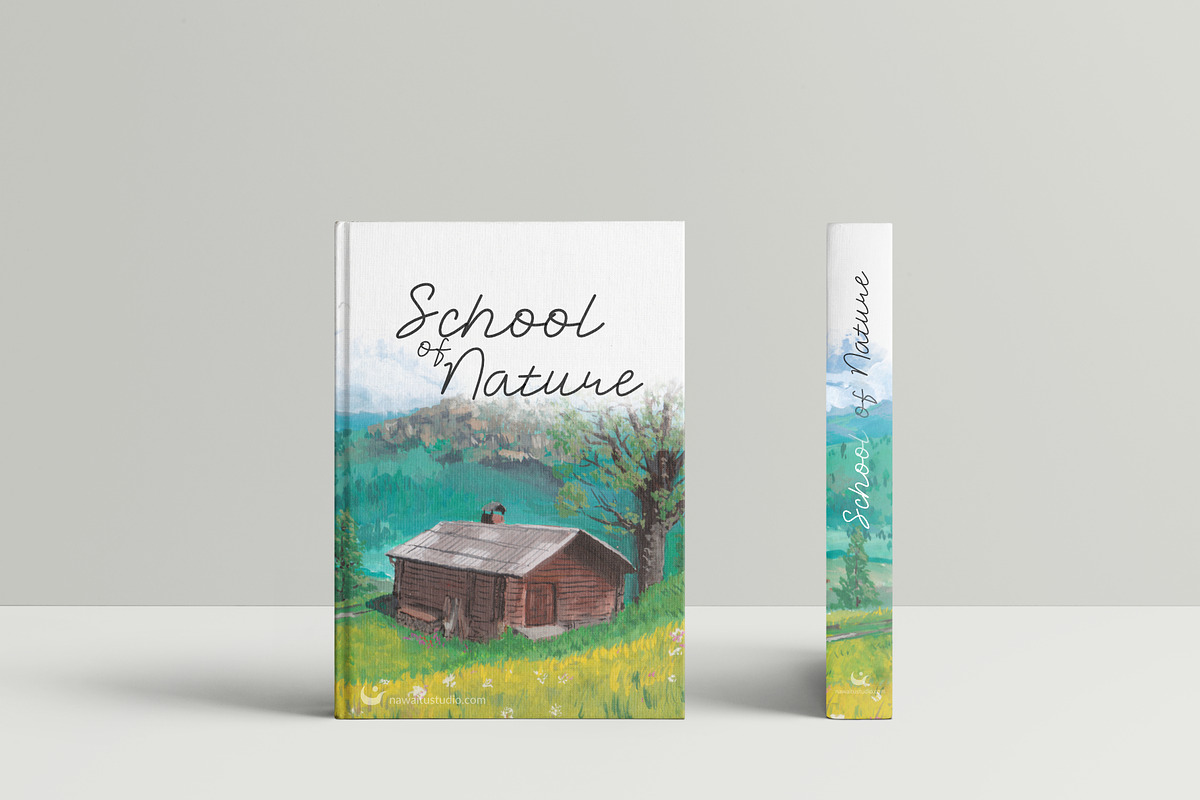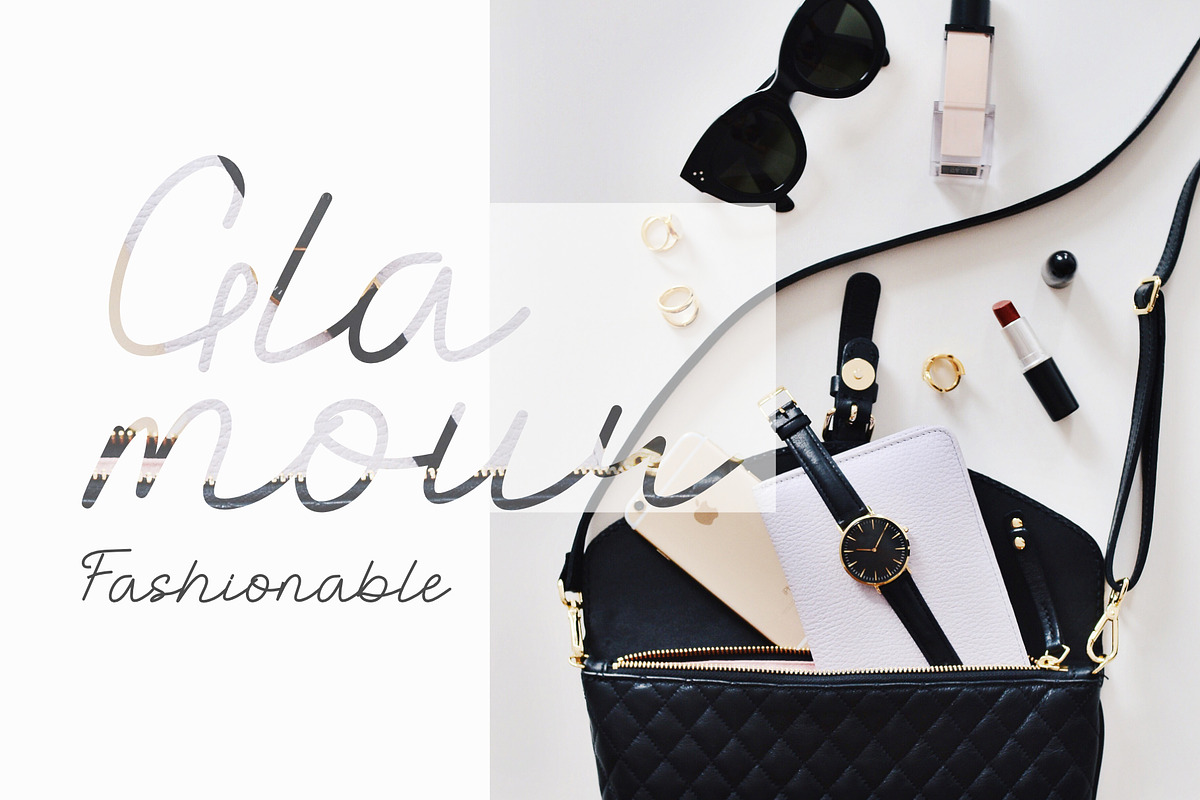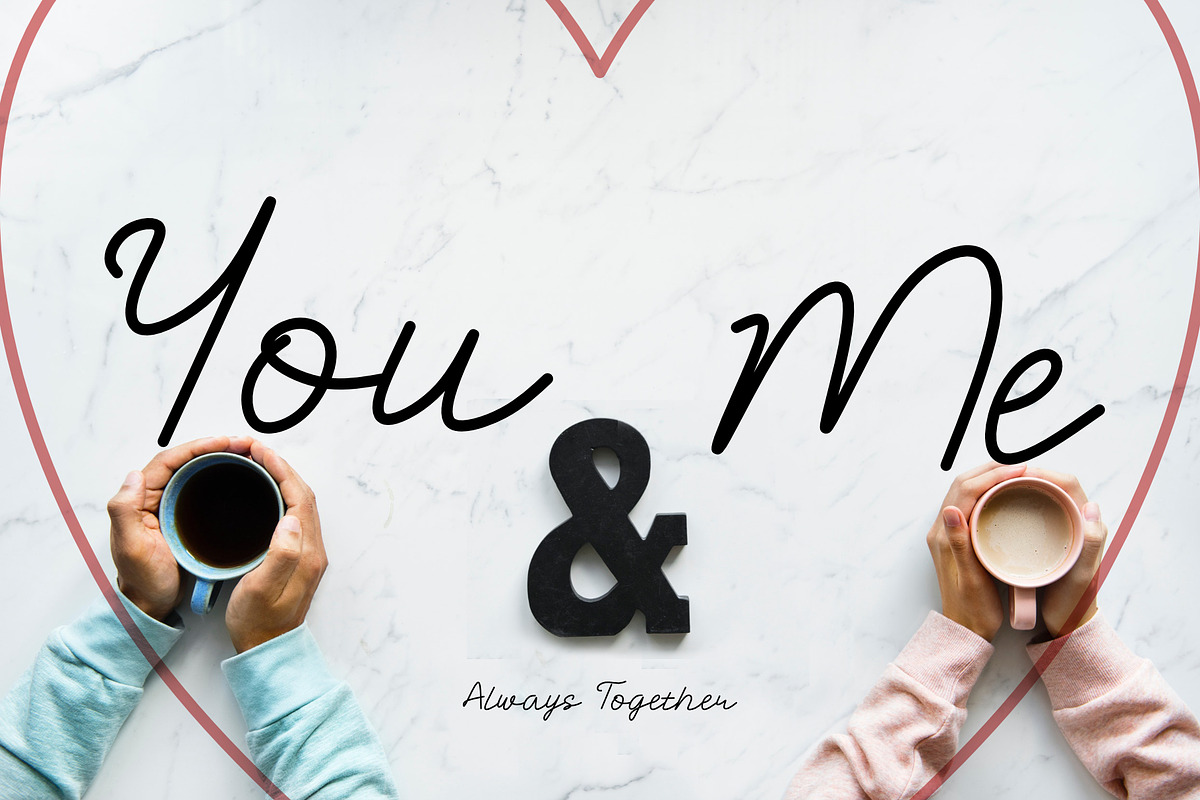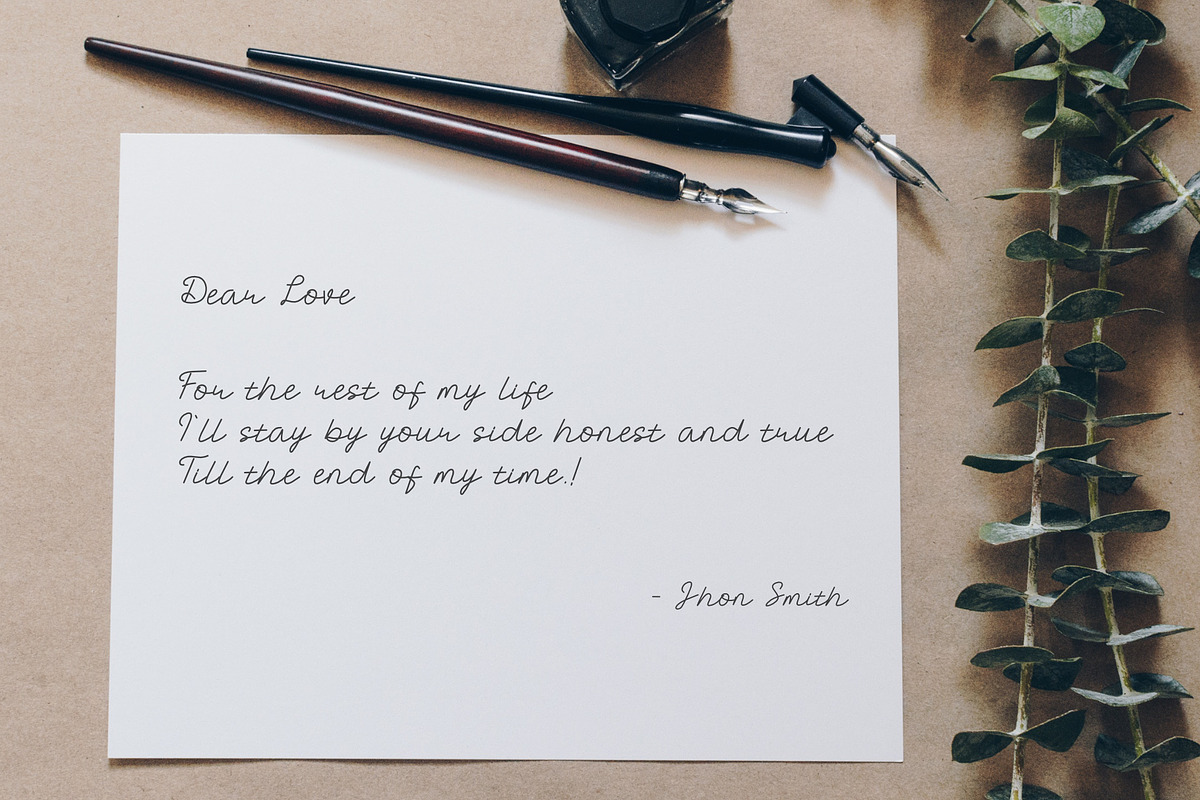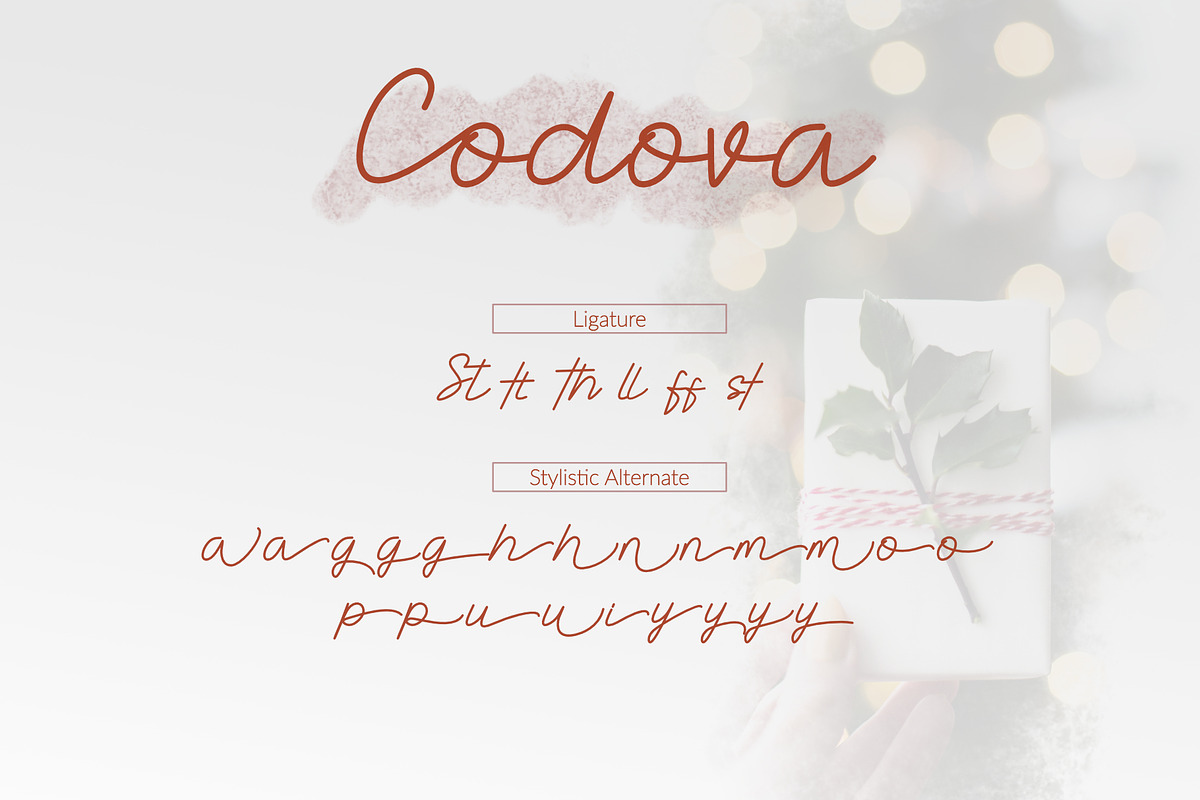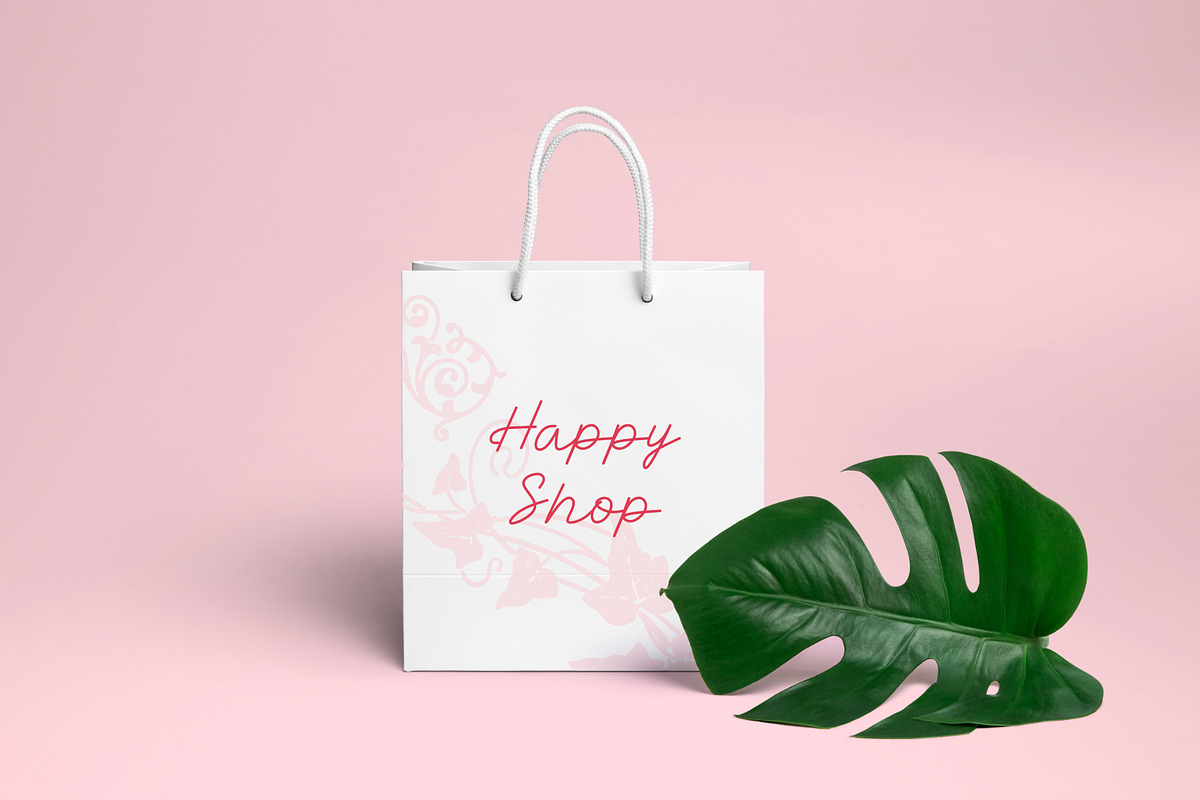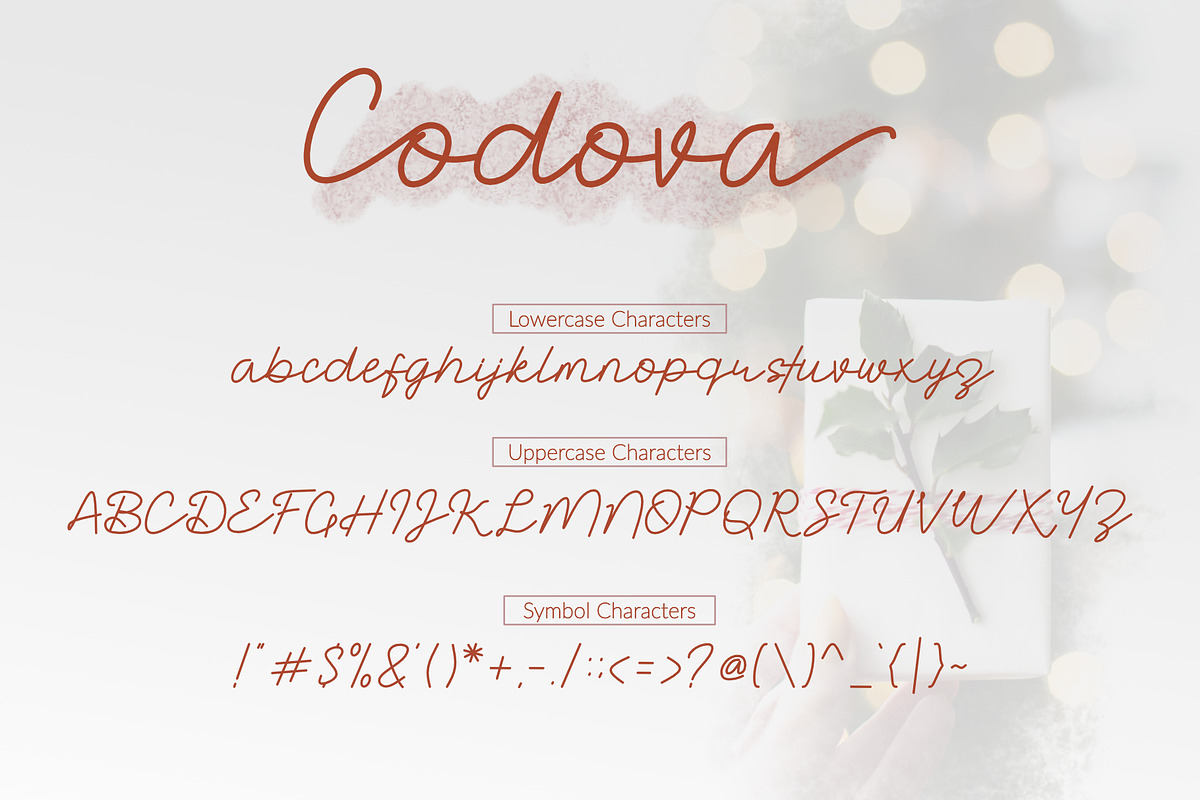
Codova Signature Font
Codova Signature Script will absolutely make your text appear beautiful as printed quotes, invitations, cards, product packaging, headers and whatever your imagination could reach. Codova Signature Script also includes full set of uppercase and lowercase letters, multilingual symbols, numerals, ligature, alternate, punctuation.
- Codova Signature Script also includes full set of uppercase and lowercase letters, multilingual symbols, numerals, ligature, alternate, punc
Why Codova Signature Font is worth a look
Codova Signature Font by Remnand Studio fits naturally into Branding, posters, packaging, typography.